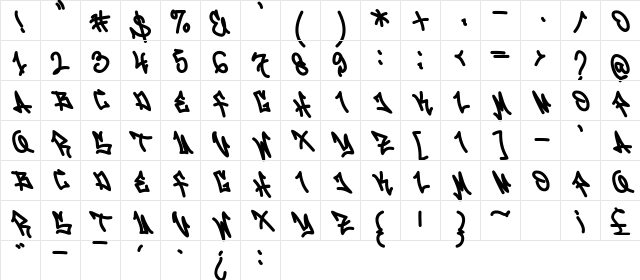
Complete Hoax Vandal Regular glyph index. Displaying only characters natively supported by Hoax Vandal Regular font.
Hoax Vandal is a composed and adaptable typeface that performs quietly and consistently across a wide range of design contexts.